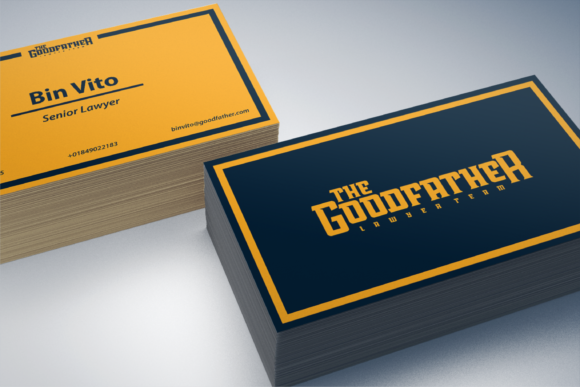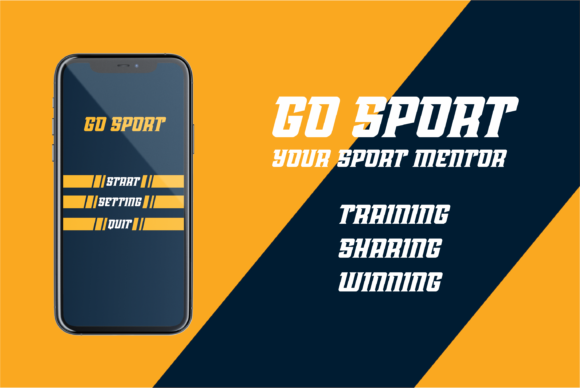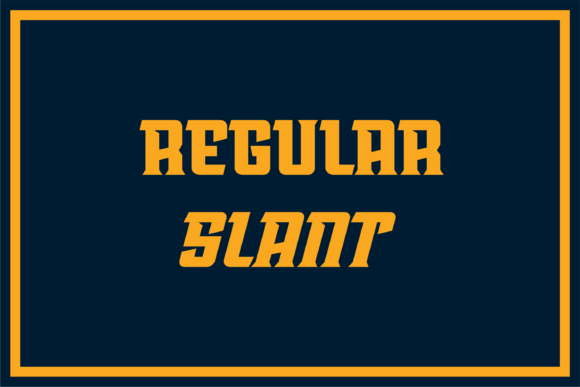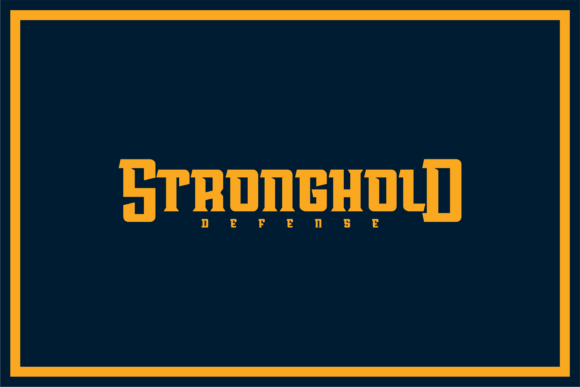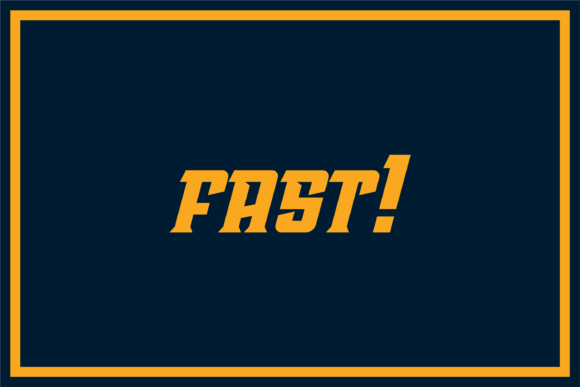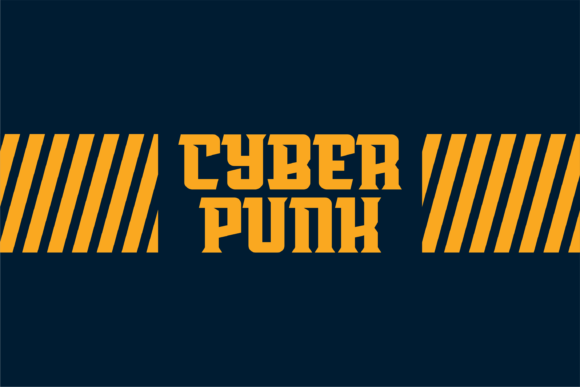
Discover the Magic of Awmu Font: Elevate Your Designs to New Heights
As a designer, you know that moment when the perfect font clicks – and your creative vision comes alive. You’re browsing through fonts, scrolling through endless options, and then, suddenly, it hits you: the one that makes your design sing. For us, that moment often involves Awmu Font, a game-changing display font that adds a touch of sophistication and style to any project.
Whether you’re working on a logo, a brochure, or a social media campaign, Awmu Font is the perfect addition to your design toolkit. Its incredibly versatile nature makes it a valuable asset for designers of all levels, from beginners to seasoned pros. With Awmu Font, you can create stunning designs that stand out from the crowd and leave a lasting impression.
Awmu Font Key Features
- Character Count: The font includes over 1000 glyphs, including Latin, Cyrillic, and Greek alphabets, as well as various symbols and punctuation marks.
- Unique Characteristics: Awmu Font features a unique blend of modern and traditional design elements, with intricate details and subtle texture, making it perfect for creative and artistic projects.
- Font Weight: The font includes 5 different font weights: Light, Regular, Medium, Bold, and Black, allowing users to customize the font’s appearance to suit their needs.
Awmu Font Review
Overall, I was quite impressed with the Awmu Font. Here’s my honest take on this font.
- Unique Design: The Awmu Font has a distinctive and modern design that sets it apart from other fonts. The unique combination of thick and thin lines gives it a stylish and eye-catching look.
- Legibility: Despite its quirky design, the font is surprisingly legible, making it suitable for both body text and headings.
- Font Variations: Awmu Font offers a range of styles, including regular, bold, italic, and bold-italic, which makes it versatile for different design applications.
- Restricted Character Set: One of the main limitations of the Awmu Font is its limited character set. It lacks some common characters, which might be a problem for designers who need to typeset in non-English languages.
- Not Ideal for Small Text: The font’s thick and thin lines can make small text appear uneven or difficult to read, especially in print designs.
Overall, the Awmu Font is a great choice for designers who want a unique and stylish font for their designs. However, it may not be the best option for projects that require a large character set or small text.
Getting the Most Out of Awmu Font
To get the most out of Awmu Font, use it for headings and titles to add a touch of elegance and sophistication to your designs. You can also use it for body text to create a consistent and professional look.
Awmu Font is ideal for:
- Creative projects, such as logos, brochures, and posters